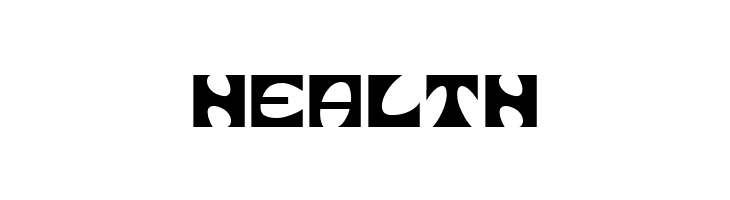
• Square circle
A bold, geometric font with square and circular elements, ideal for modern designs.
• Squish
A bold, decorative font with intricate, interconnected letterforms.
• Stage Regular
A playful, hand-drawn font with bold, irregular strokes and a whimsical style.
• StandingRoomOnlyNF
A bold, high-contrast font with sharp, angular edges and a modern aesthetic.
• Starry-Eyed Teen Crush Regular
A decorative font with star-adorned characters and a whimsical style.
• StarsAndStripes-Plain Regular
A bold, decorative font with stars and stripes, ideal for thematic designs.
• Stereo Normal
A bold, geometric serif font with strong strokes and pronounced serifs.
• Stiletto Silver
A bold, textured font with a dynamic, decorative style.
• STITCH FONT
A decorative font with a stitched, embroidered appearance.
• StonyIslandNF-Bold
A bold, decorative font with geometric and organic elements, perfect for impactful designs.